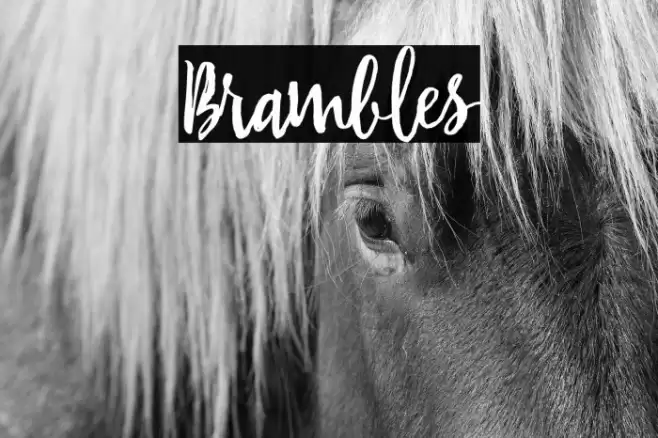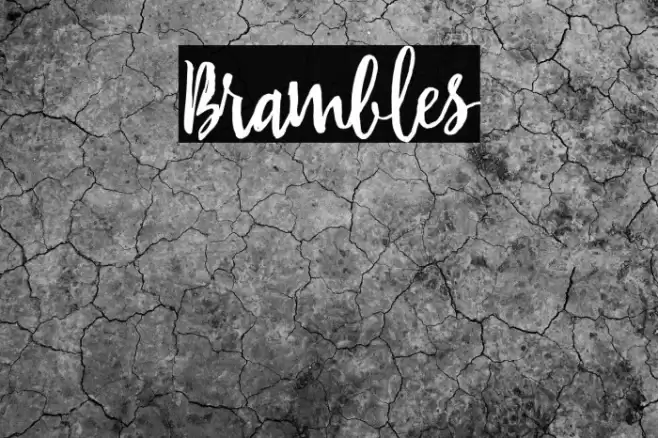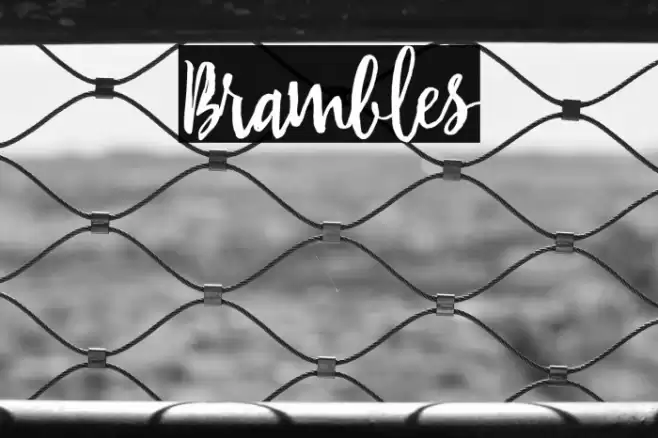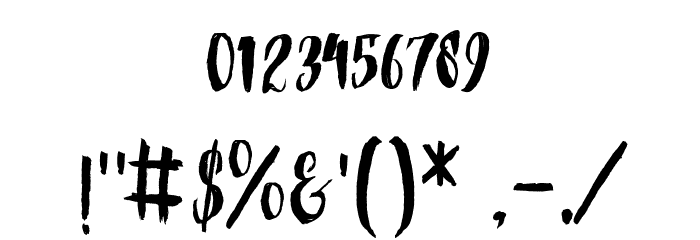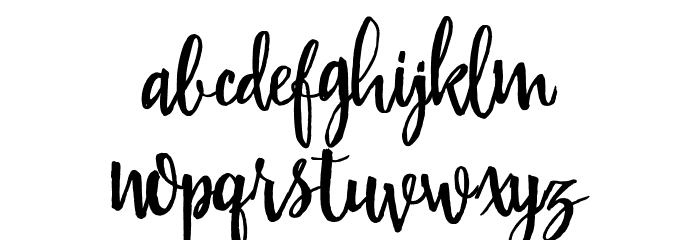
Brambles Font
Brambles Description
This font features a bold and expressive brush script style, characterized by its dynamic and fluid strokes. The uppercase letters exhibit a strong presence with their thick, sweeping lines, while the lowercase letters maintain a consistent flow, adding a touch of elegance. The numbers are equally bold, ensuring readability and impact. Special characters are crafted with the same attention to detail, making them seamlessly integrate with the overall design. The font's organic, hand-drawn appearance gives it a lively and artistic feel, perfect for projects that require a personal and creative touch.
A bold, expressive brush script font with dynamic strokes and a hand-drawn feel from Regular fonts.
- Font: Brambles
- Proposed Projects: Ideal for branding, packaging, invitations, and artistic posters.
- Use Case: Logos, Headlines, Artistic projects